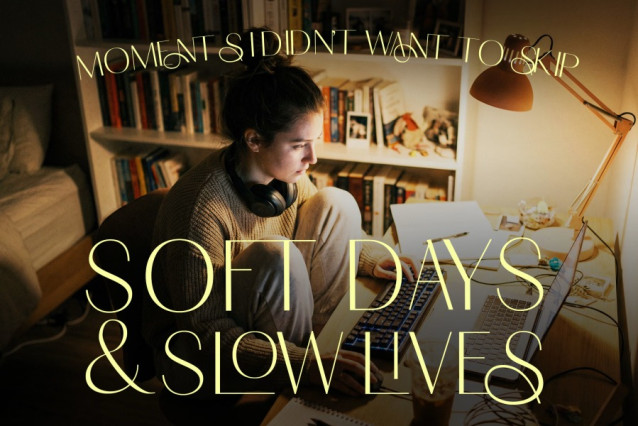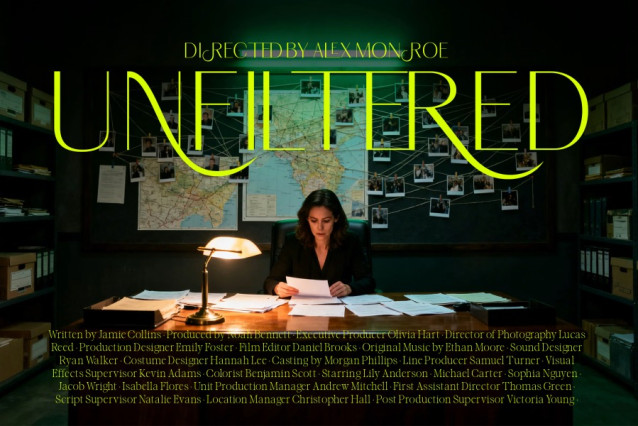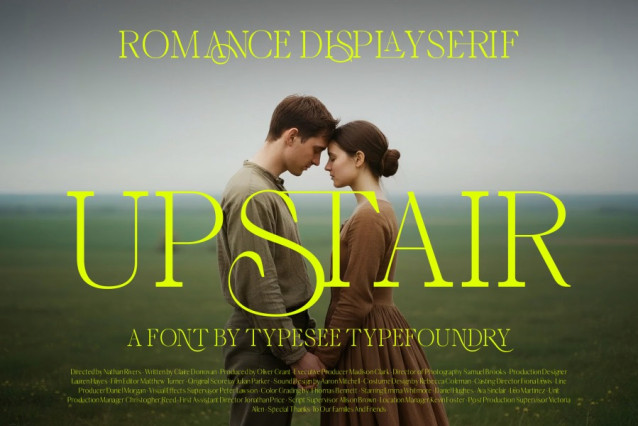
Upstair Font
Upstair Font is a romantic display serif with soft curves and elegant character shapes, designed for cinematic titles, lifestyle visuals, and emotionally driven typography.Upstair is a modern romance display serif inspired by quiet emotions, soft moments, and cinematic storytelling. It blends classic serif elegance with subtle contemporary details, resulting in a typeface that feels warm, expressive, and visually refined.
Designed to stand out in large sizes, Upstair works perfectly for movie posters, editorial headlines, branding, fashion campaigns, book covers, and lifestyle or vlog visuals. Its graceful letterforms, smooth contrast, and distinctive curves give every word a poetic presence without feeling overly decorative.
Upstair performs best when used as a display font, where its personality can shine—whether in romantic themes, calm daily-life narratives, or premium visual identities. Clean enough to feel modern, yet emotional enough to feel human, this font is built for designers who want typography to carry mood and meaning.